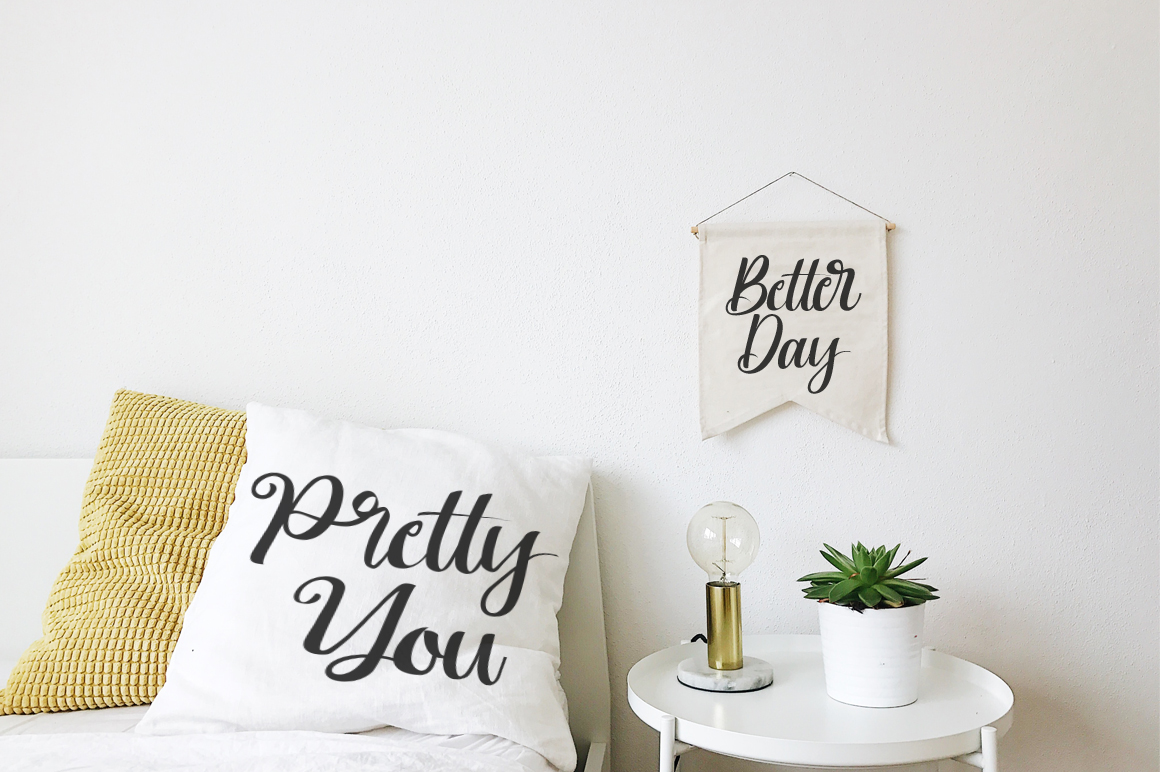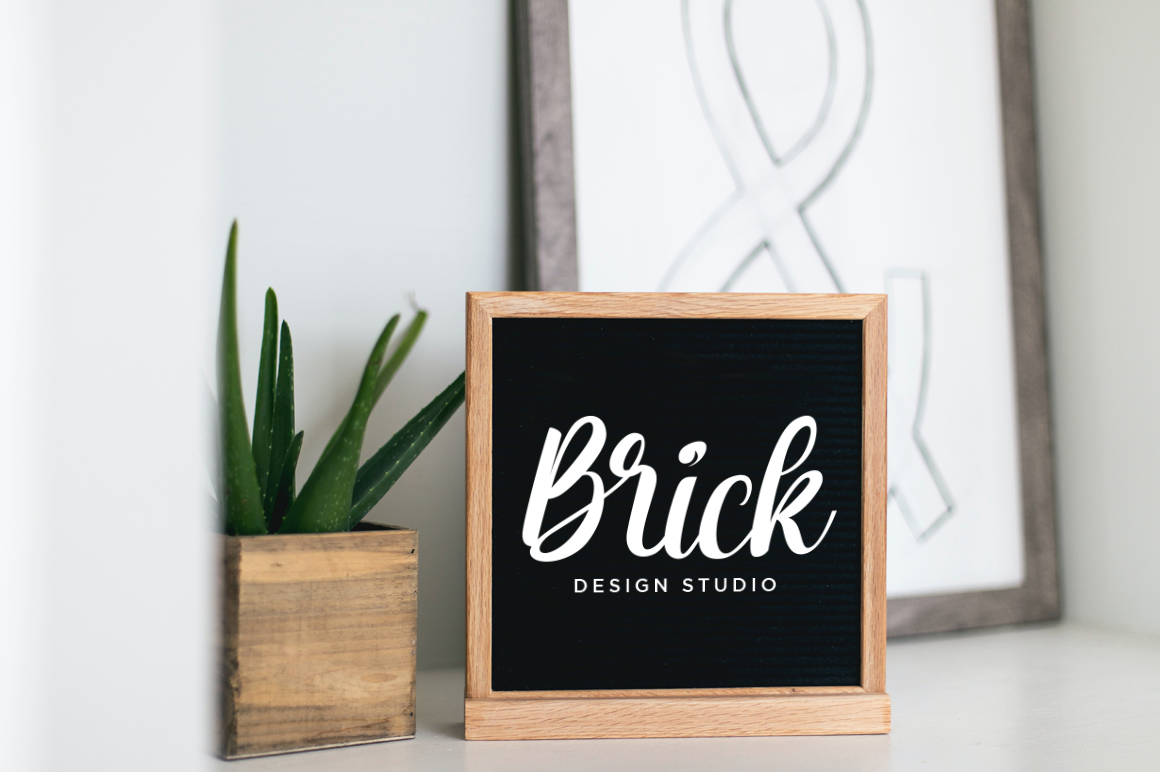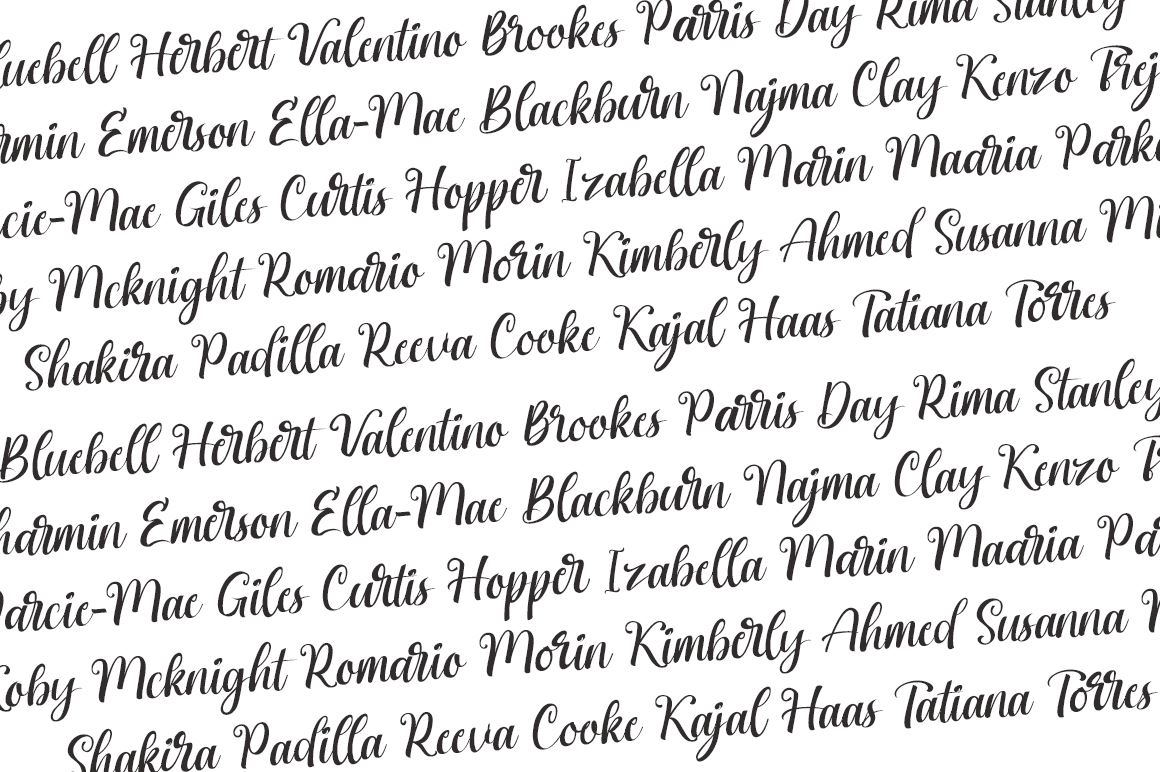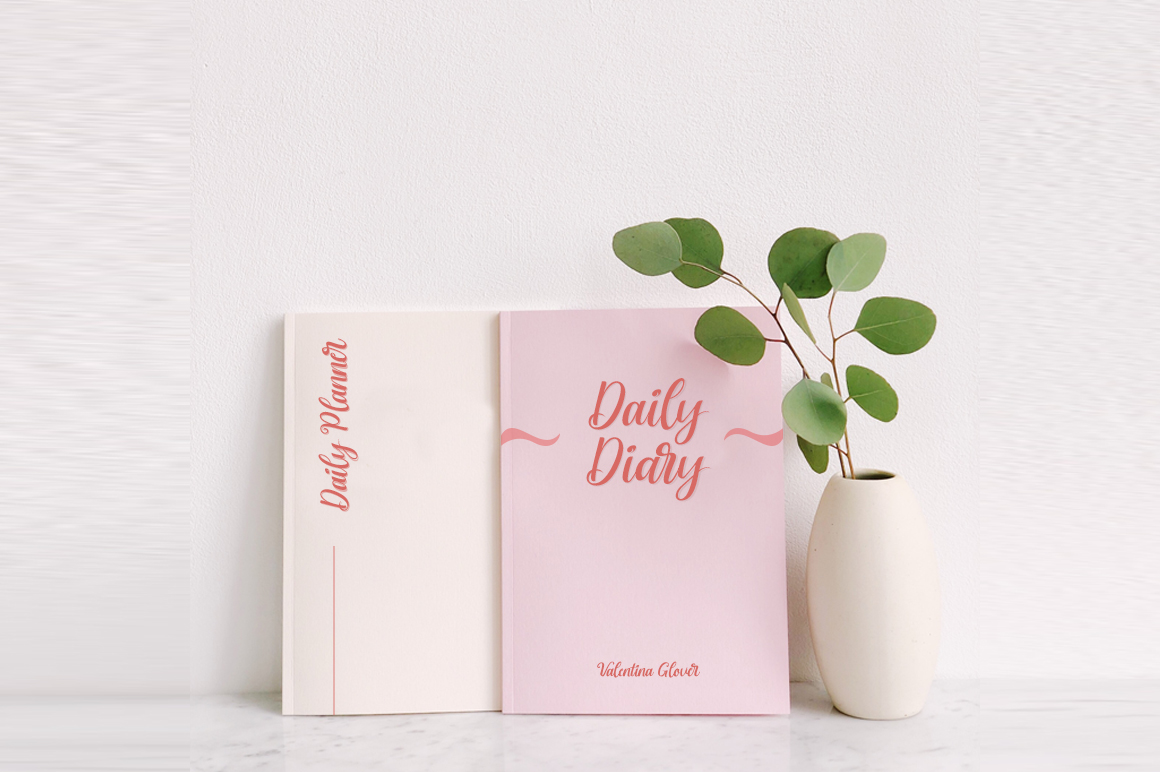
Brigitta Script Free Font
Brigitta Script Free Font is suitable for pillows text, mug, frame, logotype, and more home decoration make your home for good looking with neat calligraphy. This free typeface was designed by a talented Aditya Rezki. If you like it don’t forget to check out the full version.